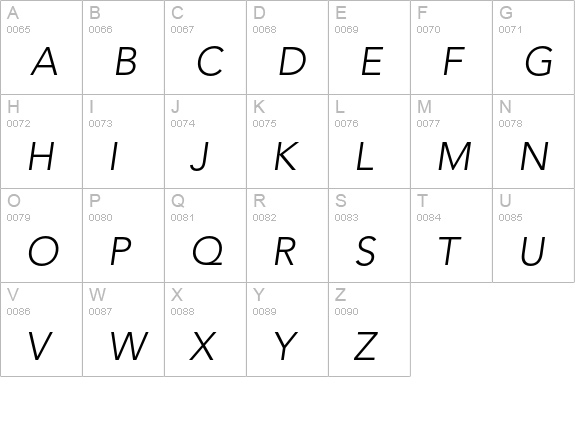
Avenir Std Light Oblique Font Details
Avenir Std Light Oblique is a refined, elegant, italic variant in the Avenir typeface family \xE2\x80\x94 well suited to elegant body text, refined sub-headings, and luxury branding.
The Avenir Std Light Oblique font exudes elegance and sophistication with its sleek, slanted design. Its light weight adds a touch of subtlety while maintaining a modern and stylish appearance. Perfect for conveying a sense of sophistication and professionalism in various design projects, from branding to editorial layouts.